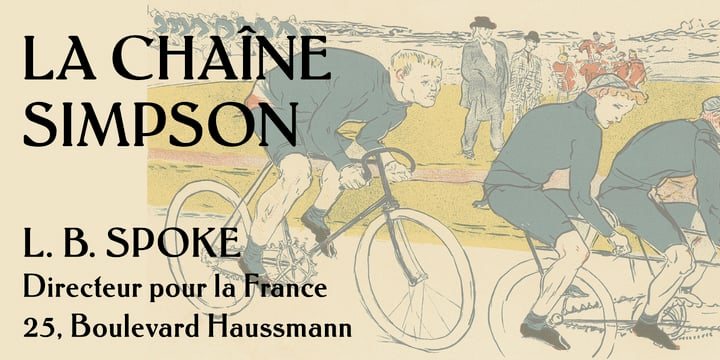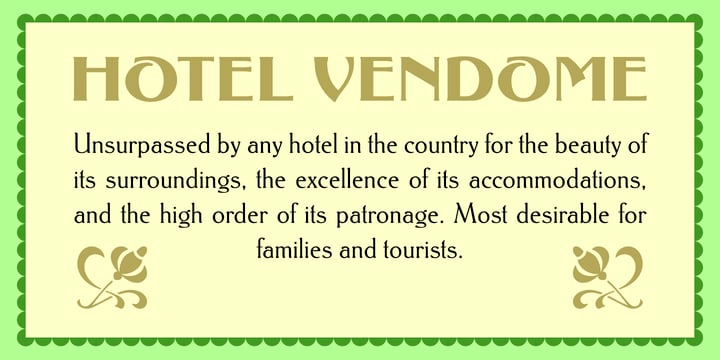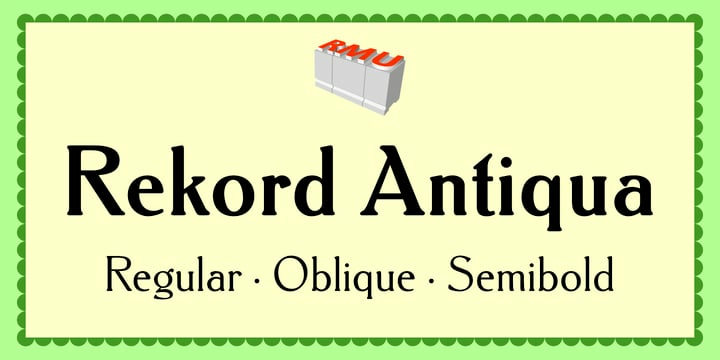
Rekord Antiqua Font Family
Rekord Antiqua Font FamilyRekord Antiqua, regular and semibold, released 1911 by Wagner & Schmidt, is a perfect body text partner for Art Nouveau display fonts. Both styles come with a long s, which can be reached by the OT feature of historical forms or by typing [alt] + b.
In addition, you find two framing elements on [alt] + P and [alt] + p, and an oblique style was added too.